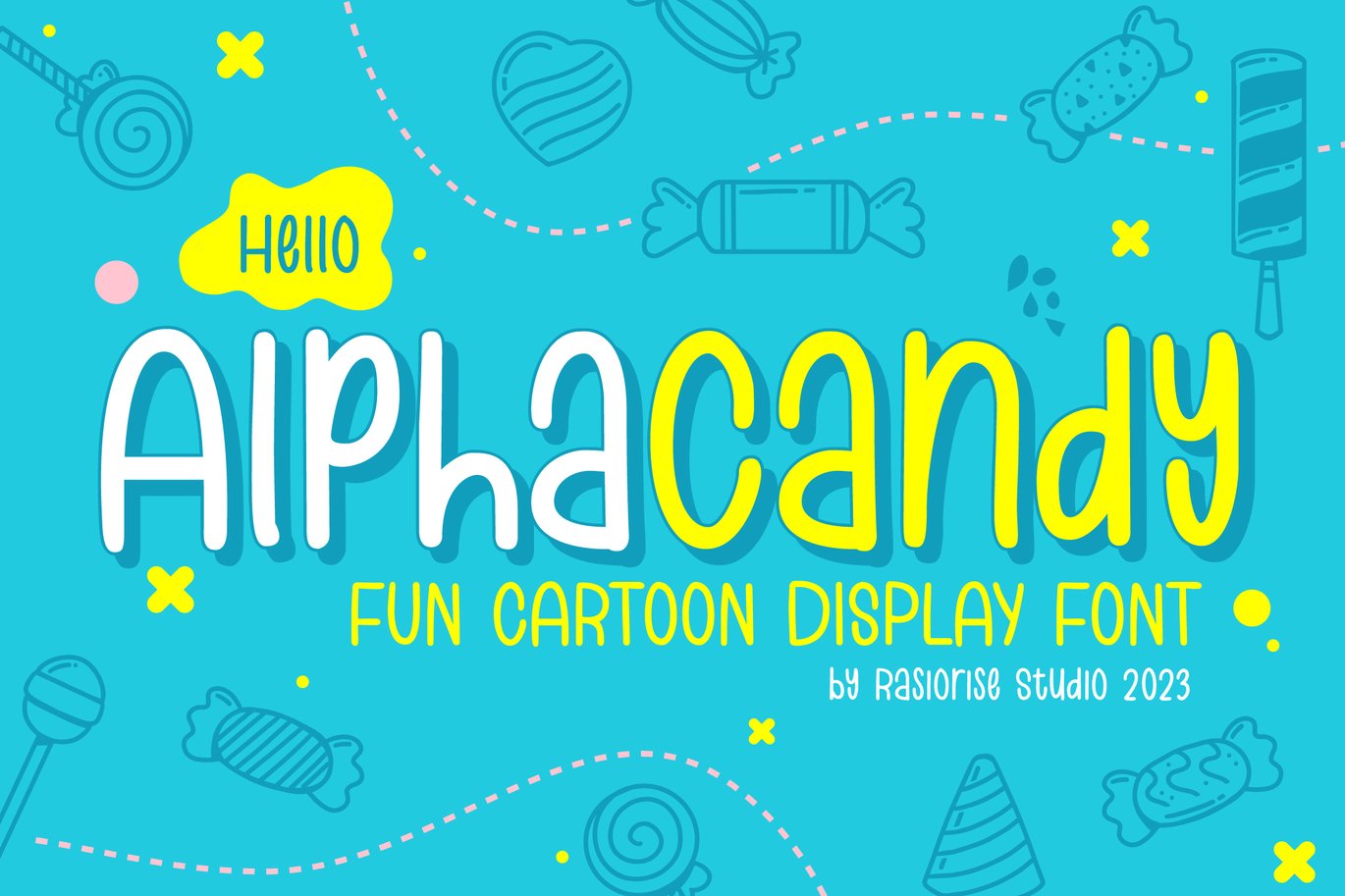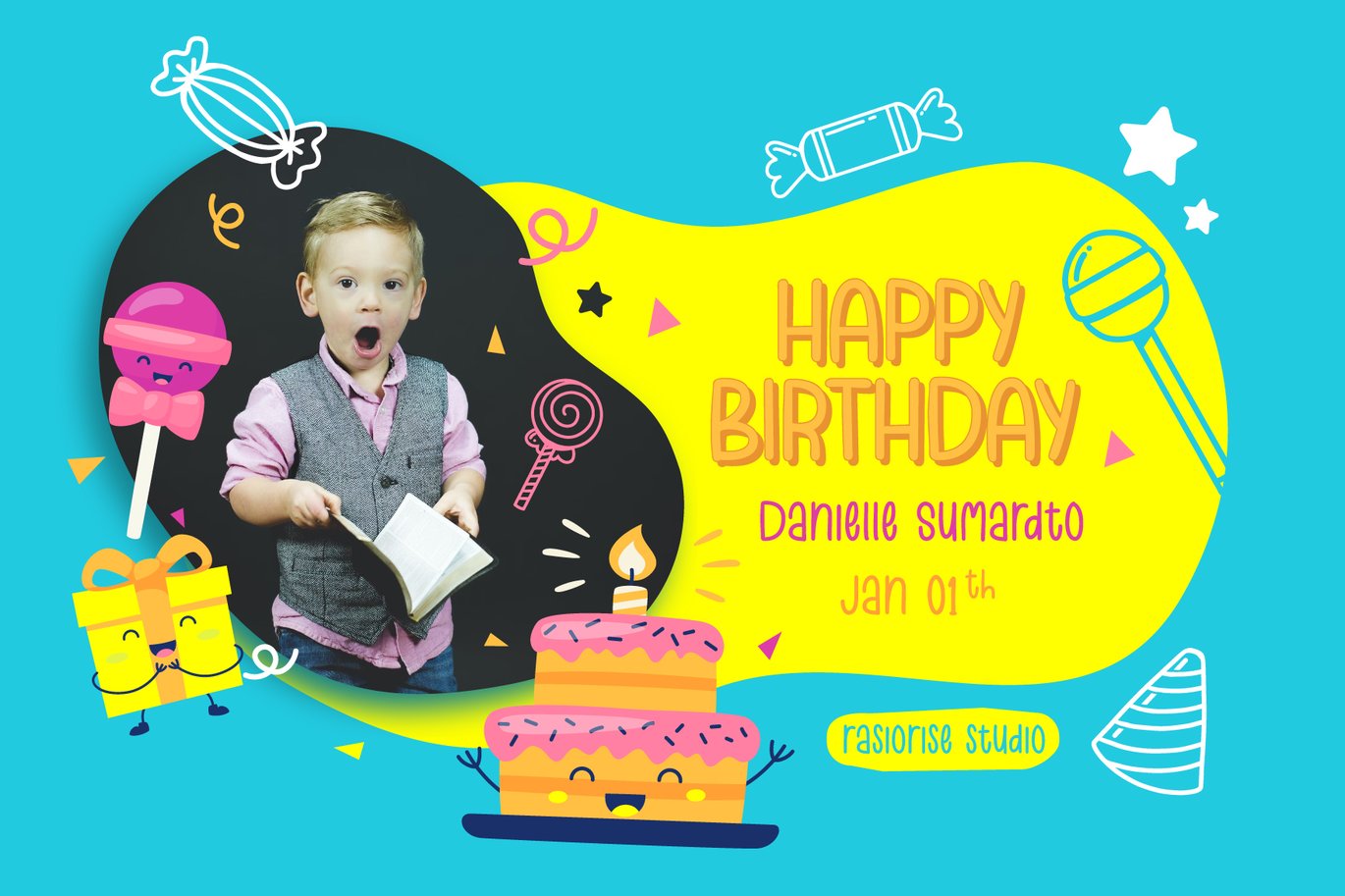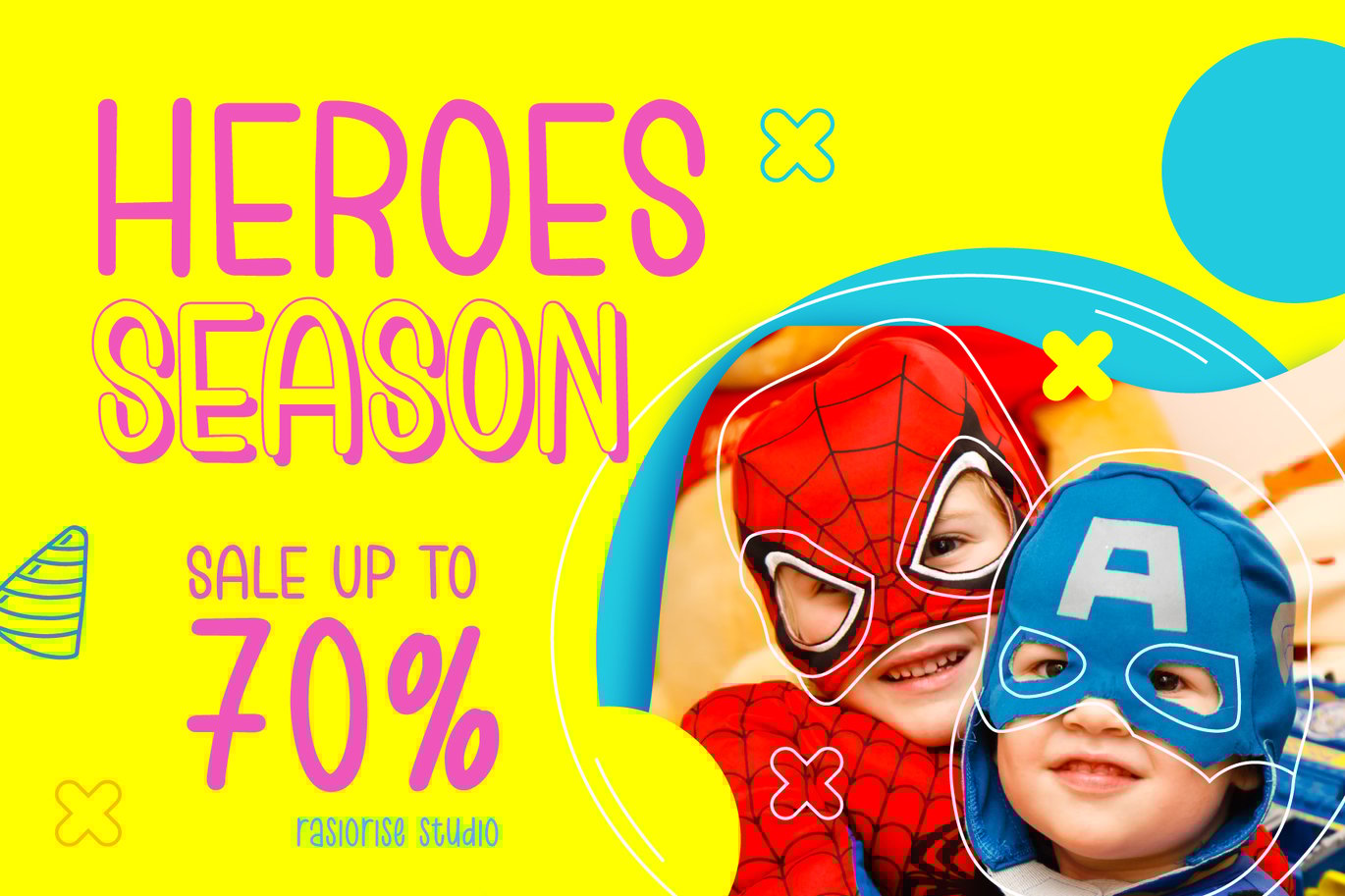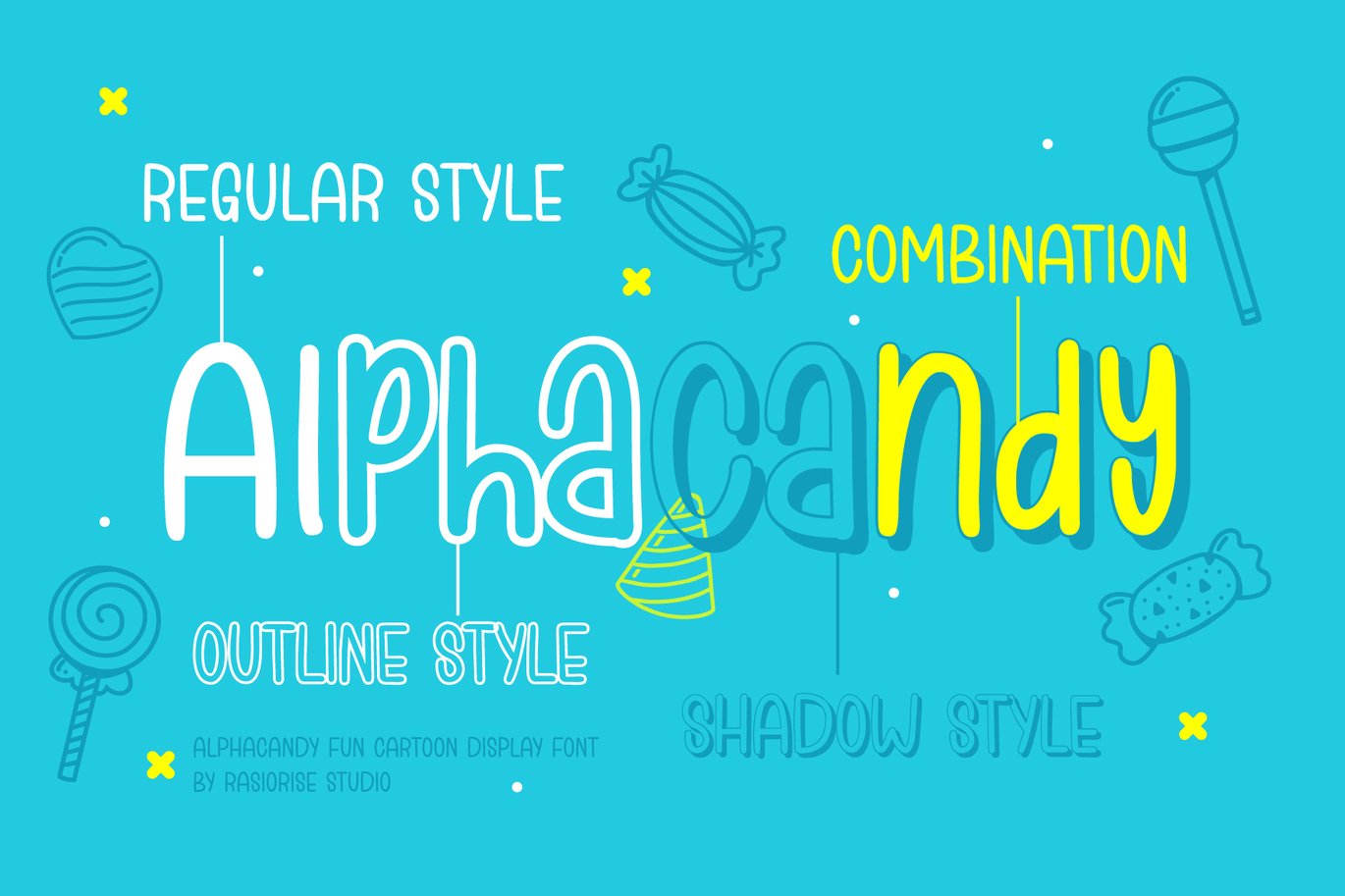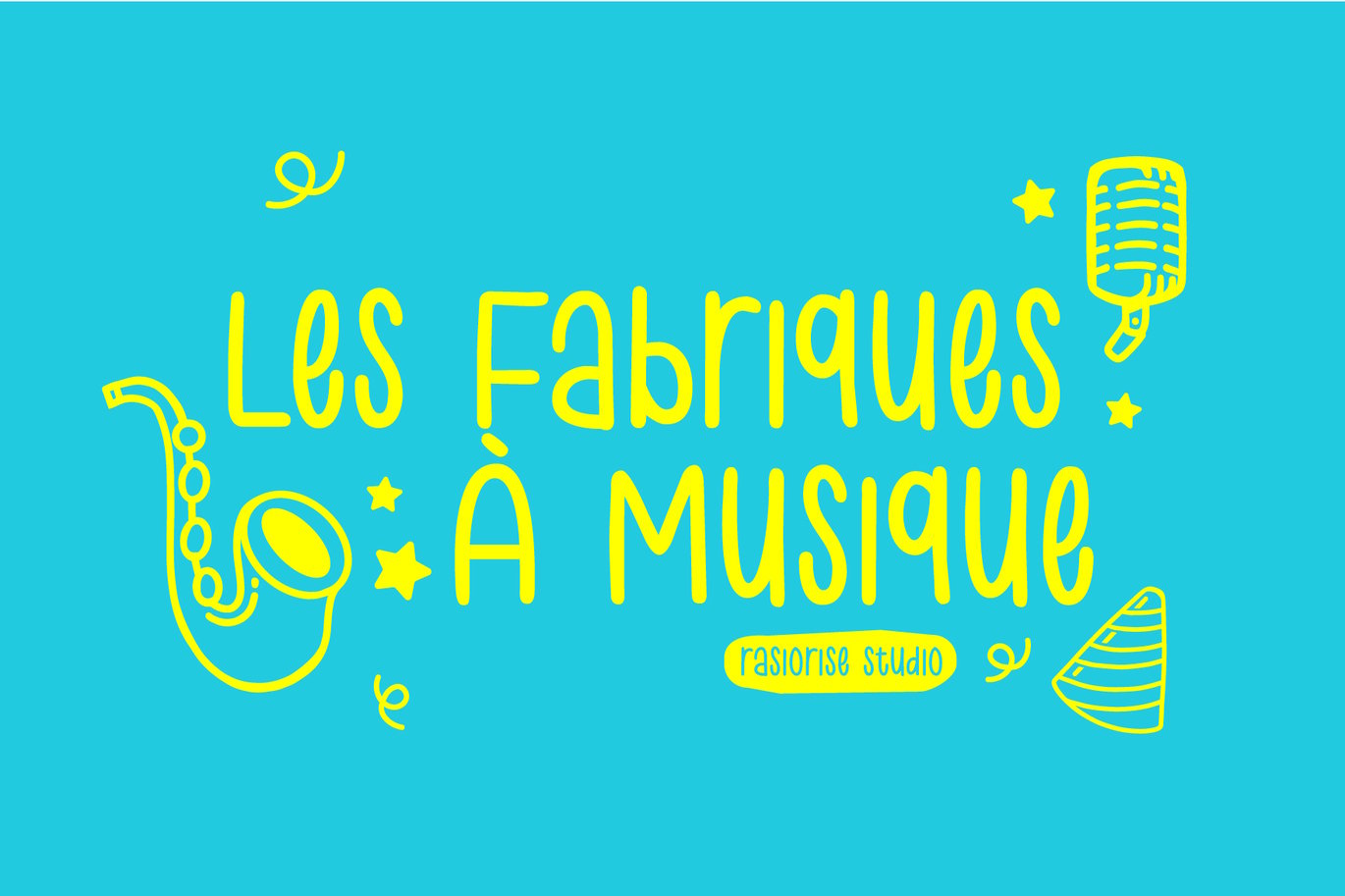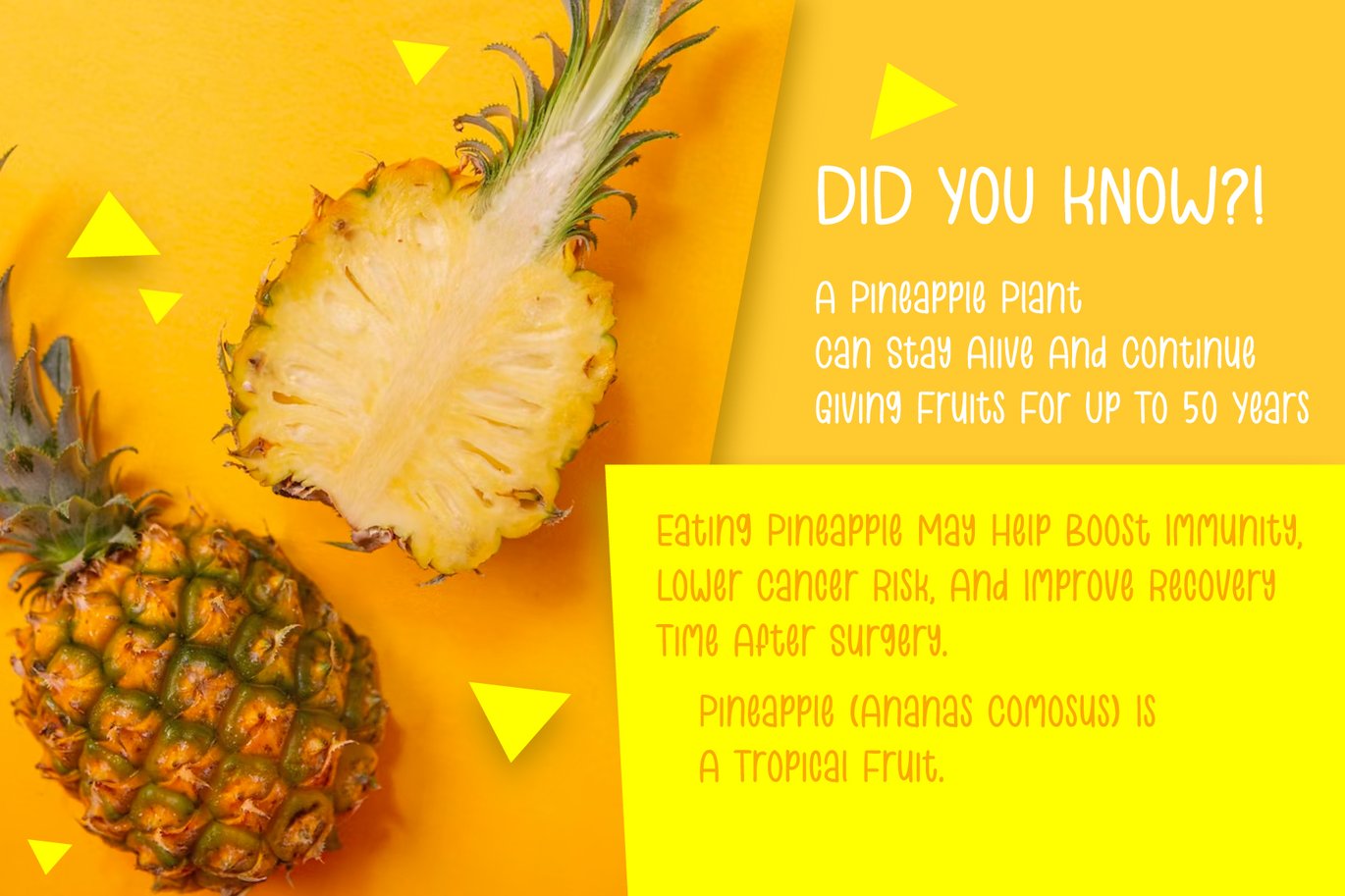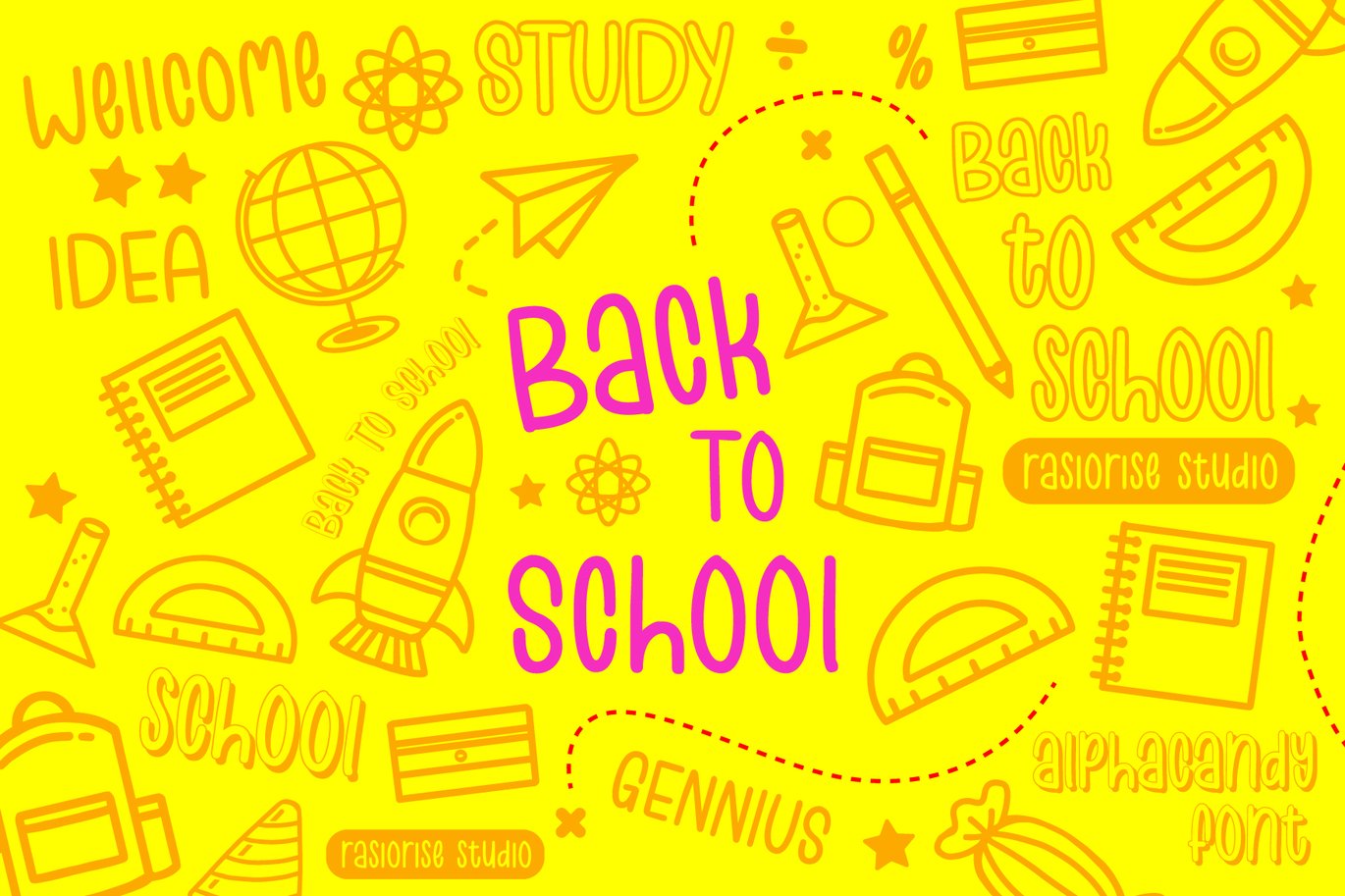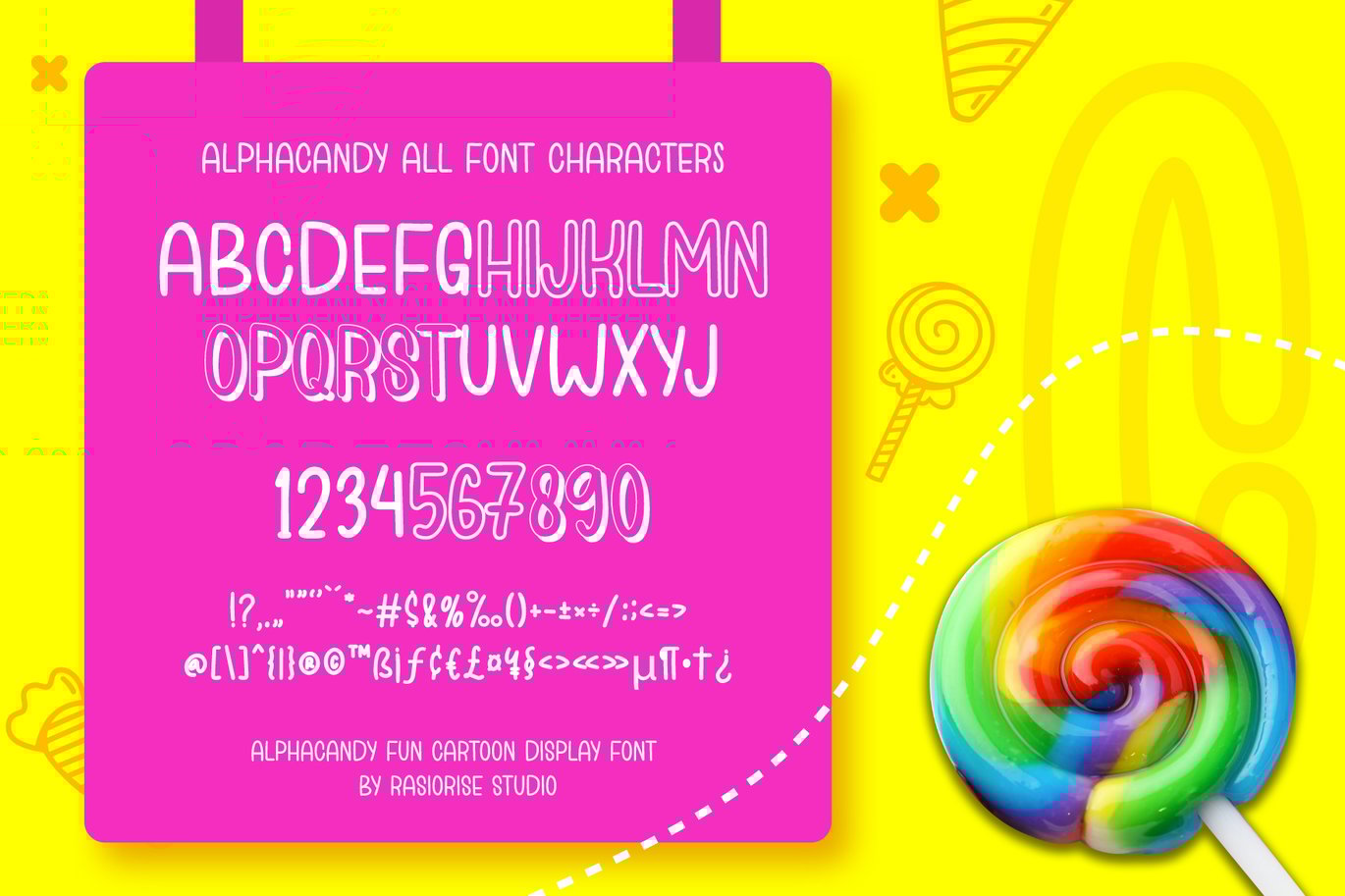
Alpha Candy – Display Fun Font
Introducing Alpha Candy – Cartoon Display Fun Font By Rasiorise Studio
Alpha Candy has been released for those of you who are looking for a Sweet and Playful Cartoon Font with 3 varians font, Regular, Monoline and Shadow style font. The font is inspired by the Sweet Candy handrawing font style with a few combine to turn them into a bit of a retro Cartoon Playful Font style.
Very suitable for Logotype, Book Cover, Cartoon Poste, Birthday Invitation, Sale promotion, Story Book and much more
- Include 3 Variant Font : Regular Font, Monoline Font and Shadow Font